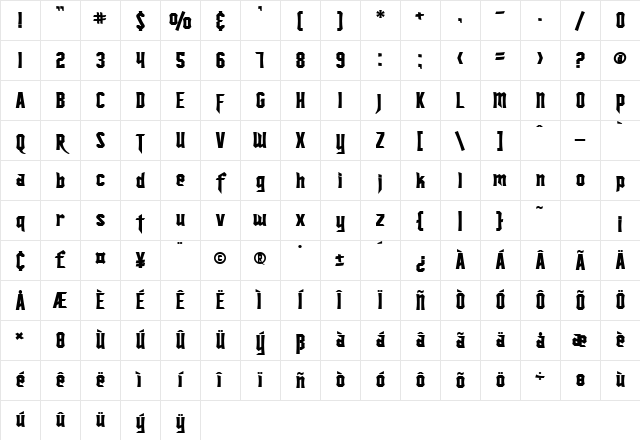
SF Ironsides Bold Free Font
SF Ironsides Bold
SF Ironsides Family
Design Context for SF Ironsides
SF Ironsides is a composed and adaptable typeface that performs quietly and consistently across a wide range of design contexts. Its bold stroke weight gives it real presence on the page.